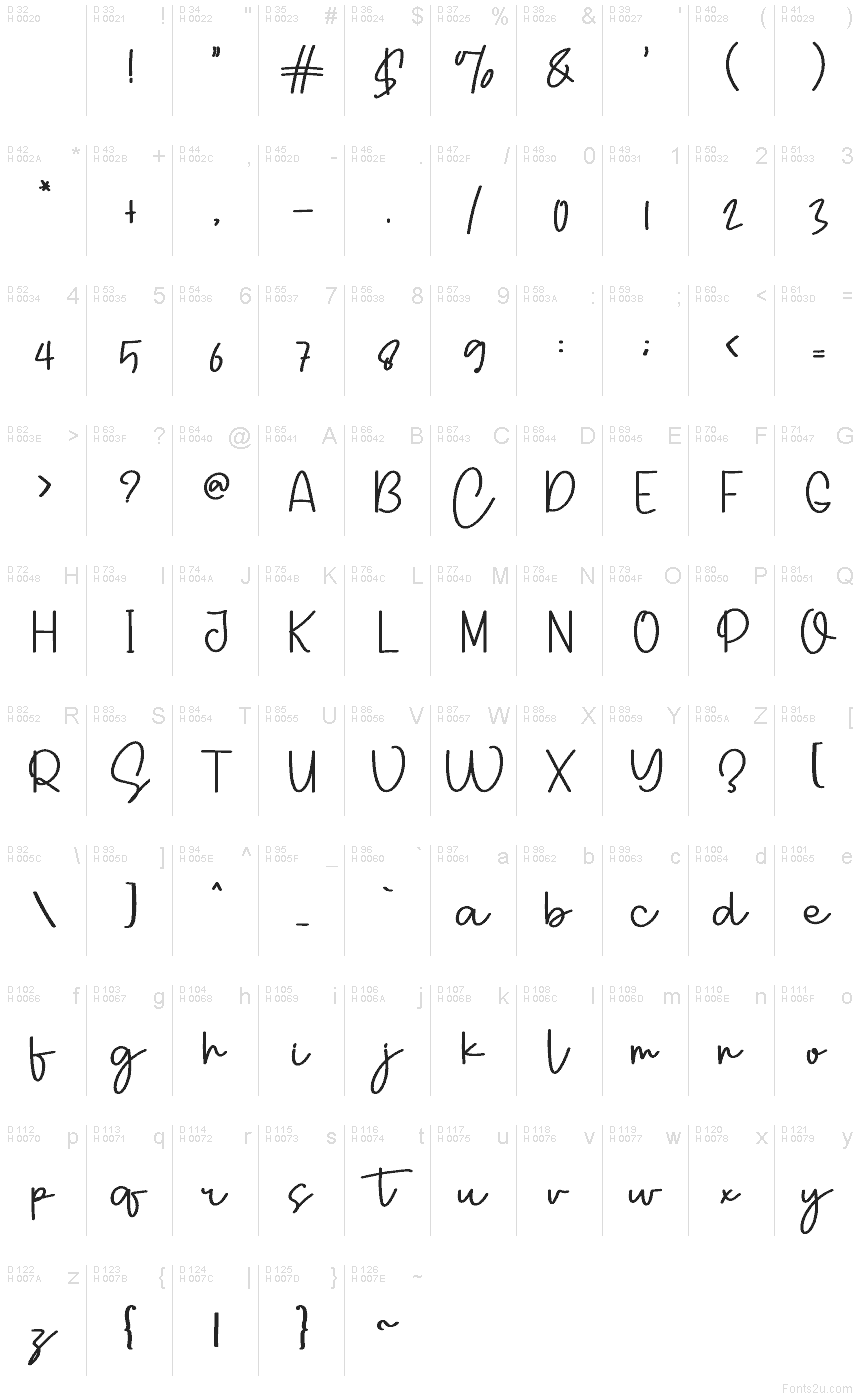
Slimfite
Slimfite font by Inermedia Studio is a free handwritten font that captures the feel of a quick, confident signature. Its thin, inky strokes and loose, looping connections give every word a breezy, personal touch—like notes scribbled in a favorite notebook, but tidier. The letters flow with an easy rhythm, making Slimfite feel intimate and modern without slipping into messiness.
Using Slimfite, your designs instantly feel more human—great for social media posts, logos, personal branding, wedding stationery, product packaging, and YouTube or podcast covers. This free font shines when used large, where the elegant curves and airy spacing can really breathe. Pair it with a clean sans serif for body text to keep your layouts balanced and readable.